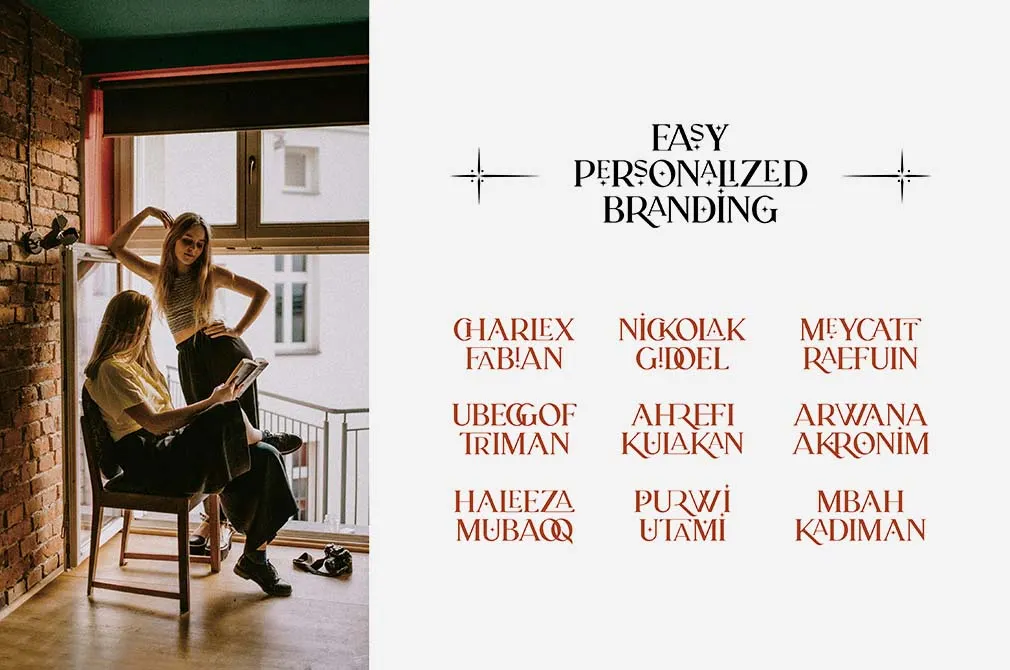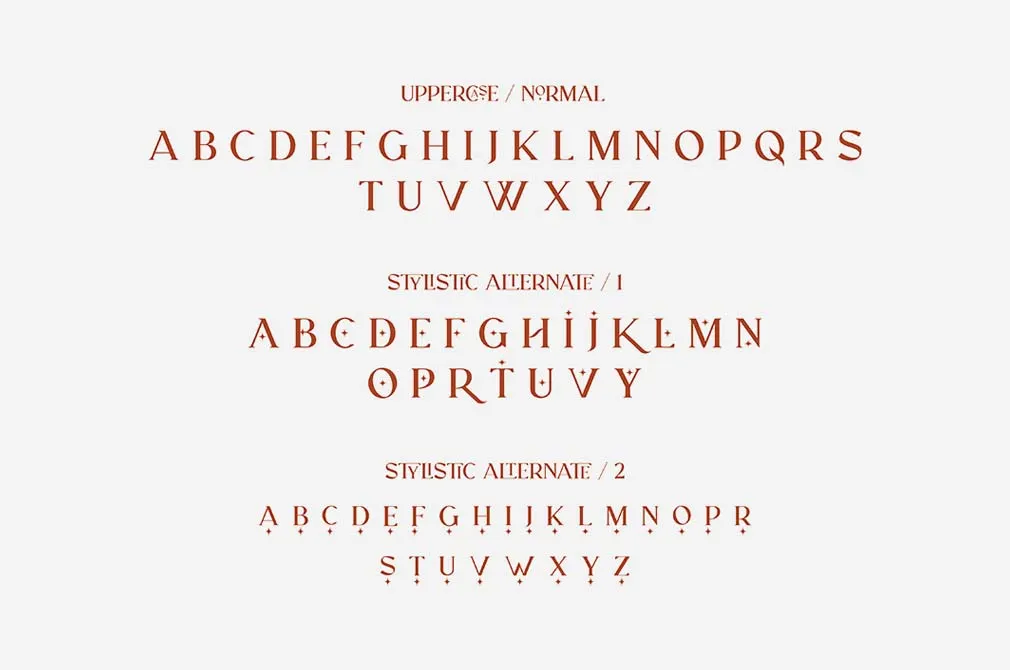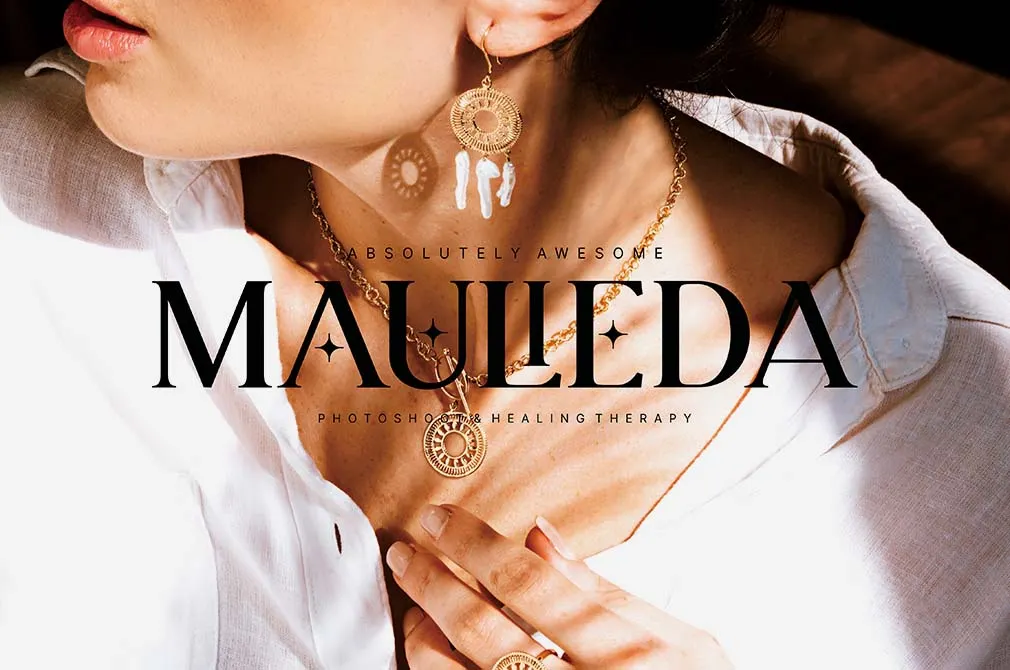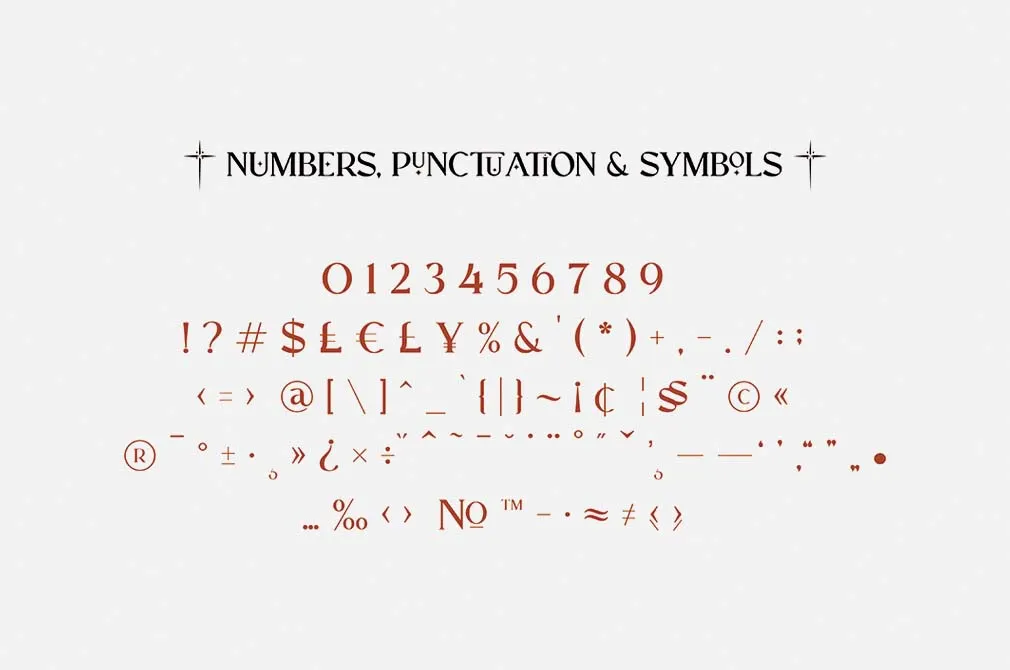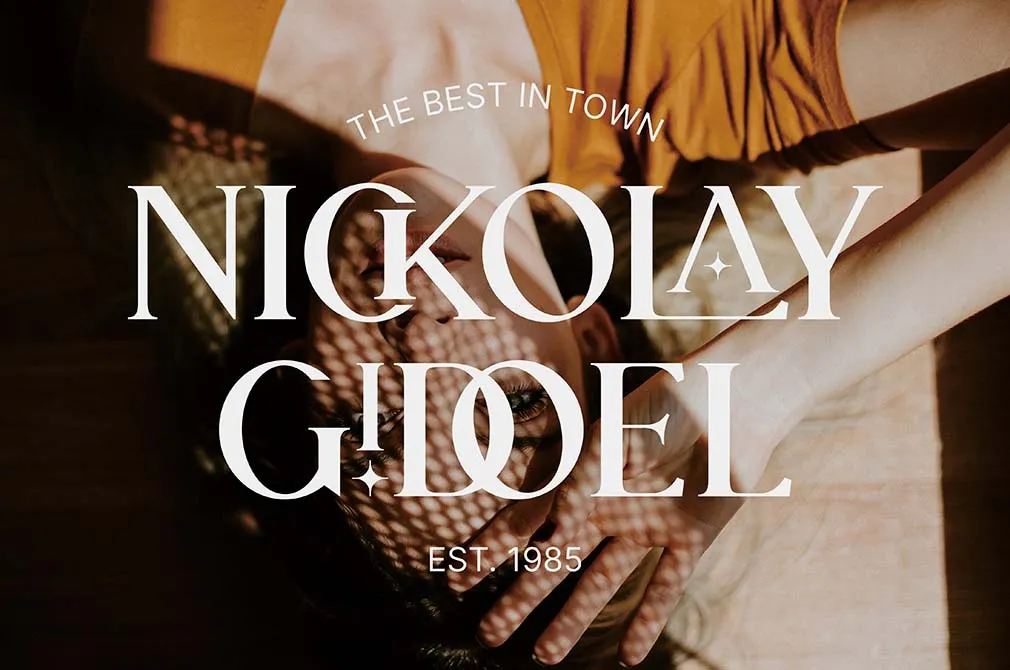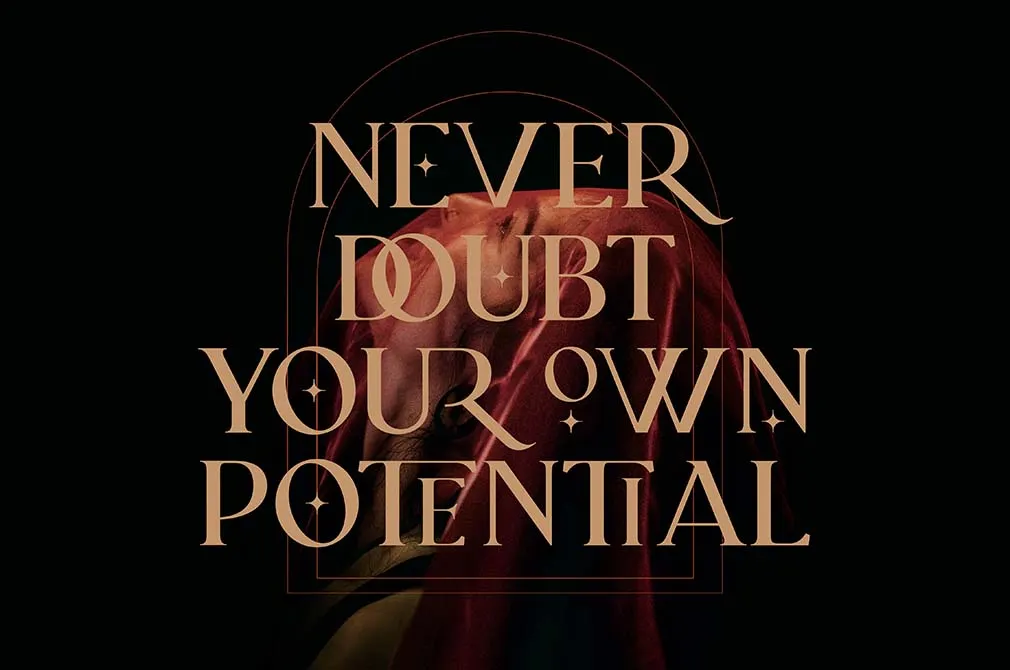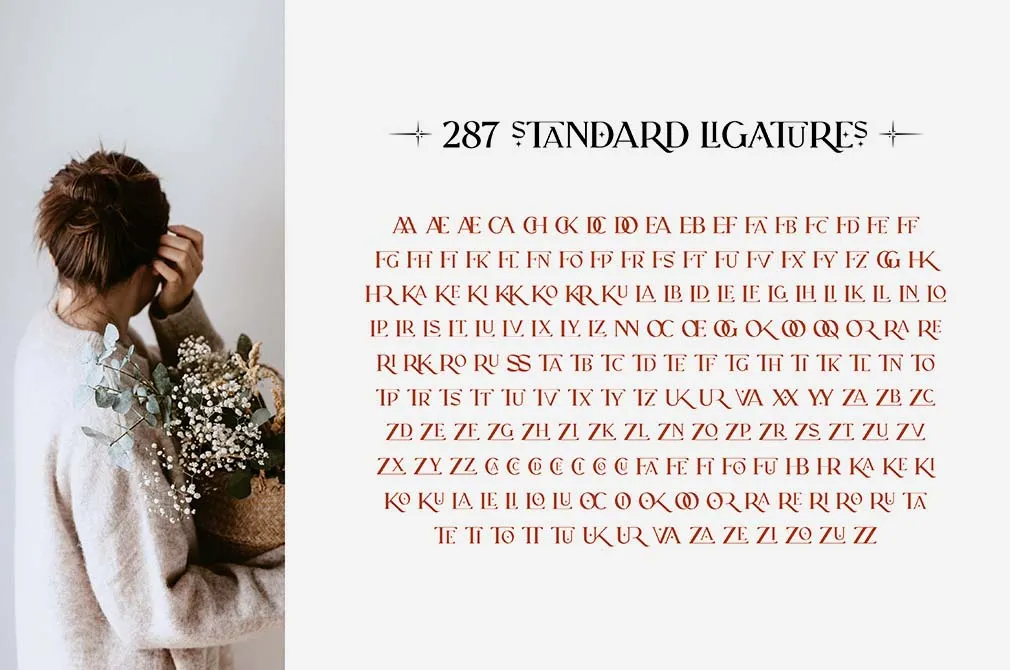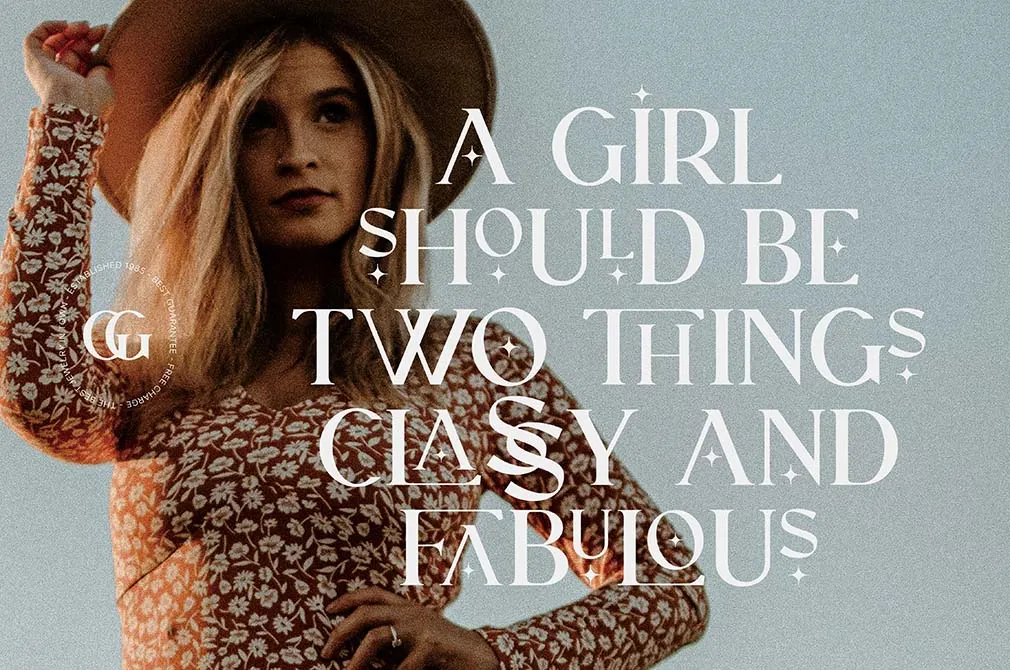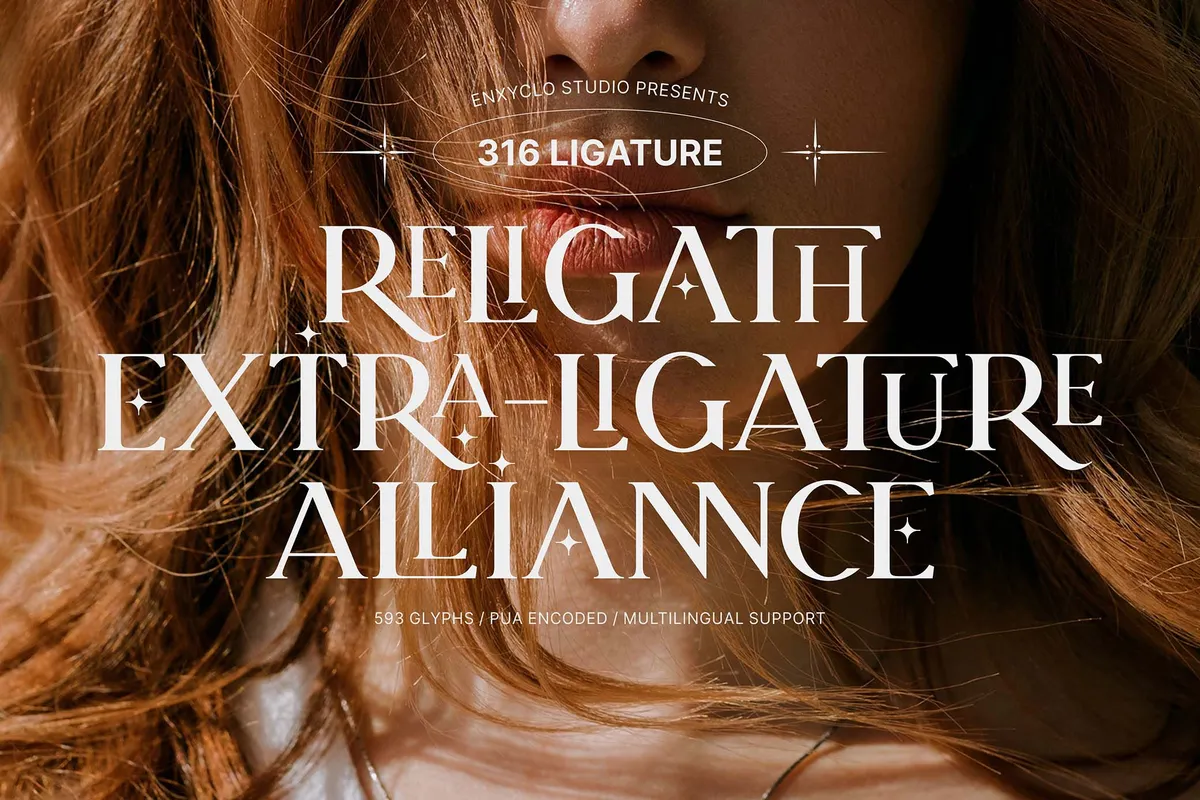
Religath Serif Font
Unlock a world of possibilities with this serif font! It offers a perfect blend of modernity and style, making it ideal for a wide range of design projects.With its exquisite uppercase letters, numbers, punctuation & symbols, along with an extensive set of 46 stylistic alternates and 316 ligatures, this font allows you to infuse your work with a touch of artistic flair. Eye-catching logos, beautiful typography for branding materials, or enhancing the aesthetics of your website — there is nothing Religath Font can’t be added to. Embrace the seamless legibility and artistic appeal of this serif to elevate your designs and leave a lasting impression on your audience!